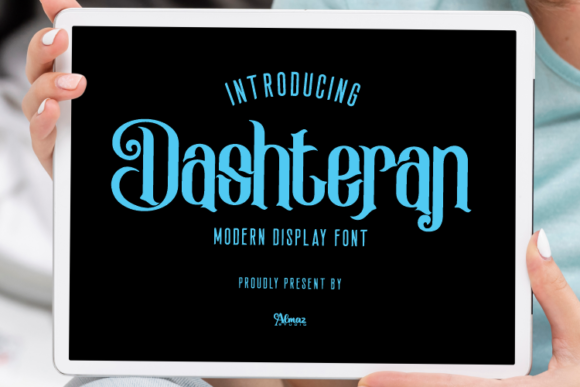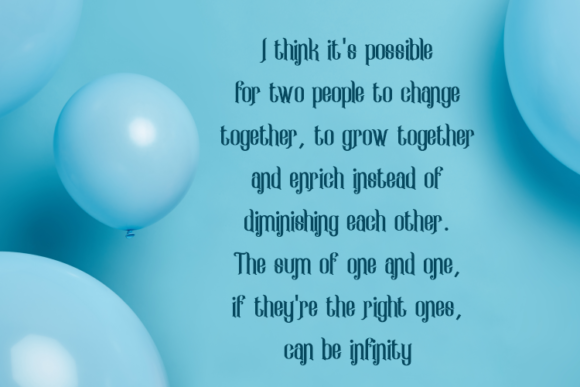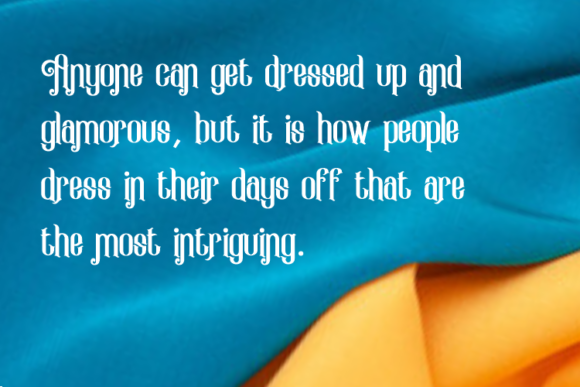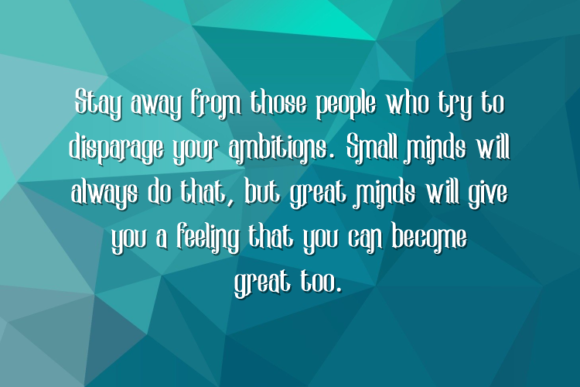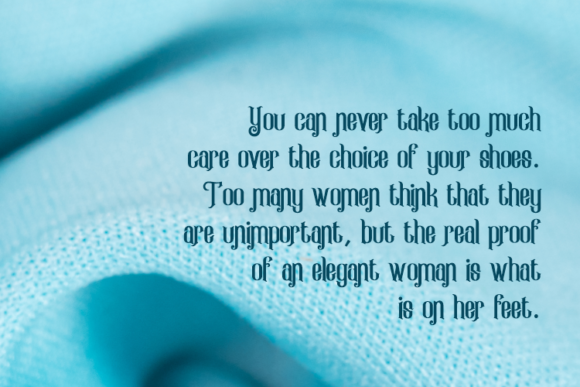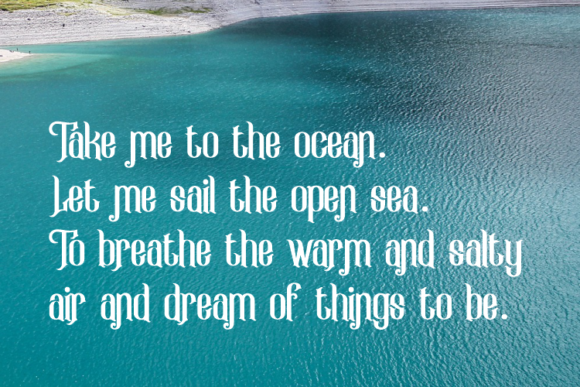
Introduction to Dashteran Font
Dashteran is a modern and distinct display font.
It is PUA encoded which means you can access all of the glyphs and swashes with ease Add it confidently to your favorite creations and let yourself be amazed by the outcome generated.